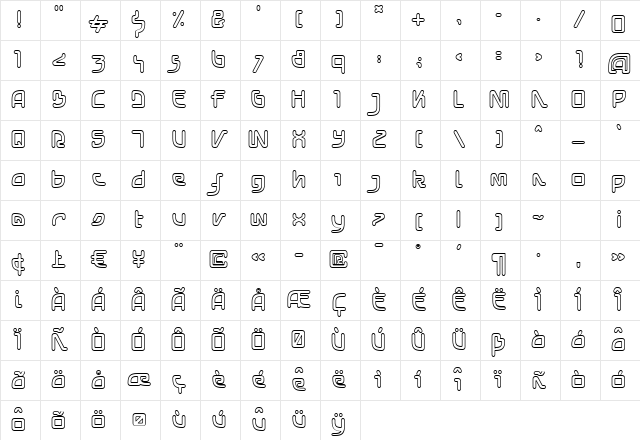
Neo TokioTwo Regular Free Font
Neo TokioTwo Regular
Design Context for Neo TokioTwo
Neo TokioTwo is a composed and adaptable typeface that performs quietly and consistently across a wide range of design contexts.